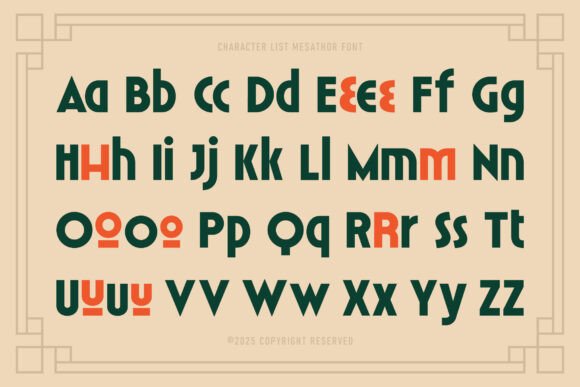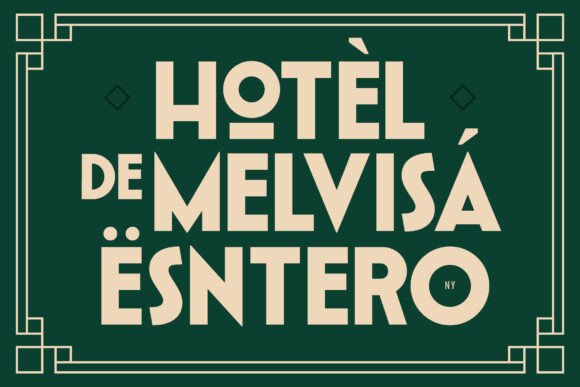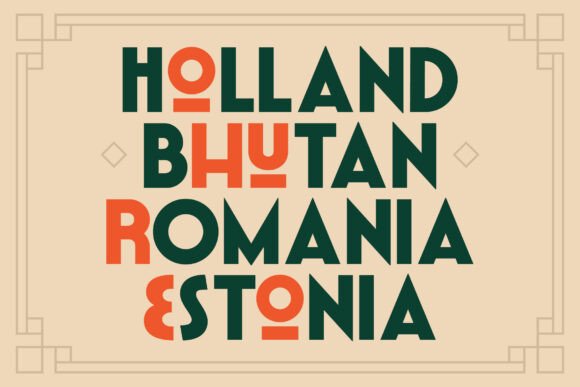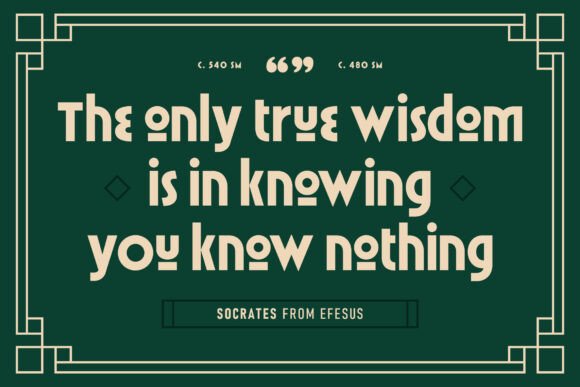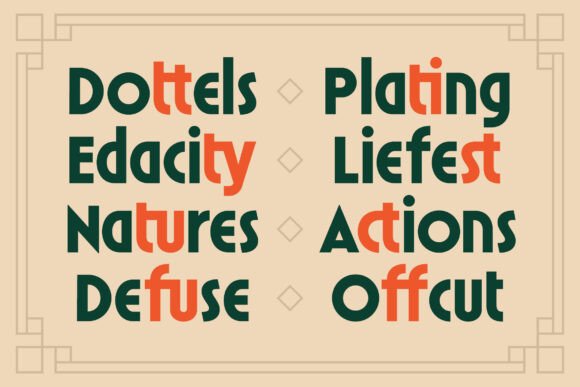
Introduction to Mesathor Font
Mesathor is a bold and modern Art Deco-inspired display font that blends vintage charm with contemporary geometric design.
| ๐ค Author | Typia Nesia |
Featuring sharp angles, strong vertical lines, and elegant symmetry, this typeface is perfect for branding materials, headlines, impactful headlines, advertising, packaging design, editorial layouts, digital media and poster designs Mesathorโs stylized form evokes sophistication and strength, making it an ideal choice for designers seeking a timeless yet powerful visual identity.